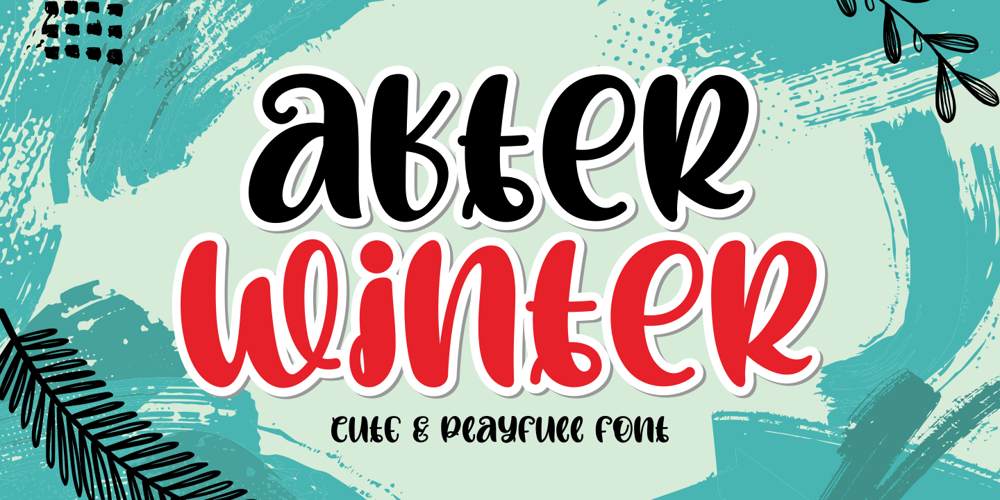
After Winter Font Family was designed by Riyadh Abuhafs and published by Awan Senja. After Winter contains 1 styles and family package options. Introducing our newest cute typeface, After Winter, Cute and Playfull font. This font perfectly made to be in poster funny, and the other various formal forms such as invitations, labels, logos, magazines, books, packaging, fashion, make up, stationery, novels, labels or any type of advertising purpose